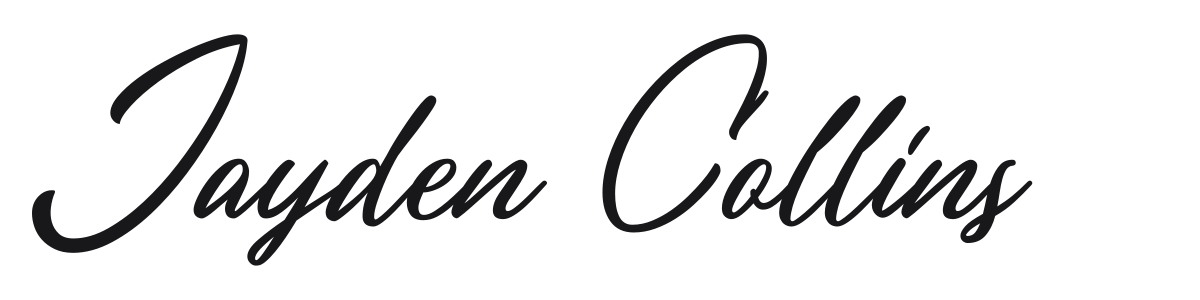
Jayden Collins
Jayden Collins is a casual signature script from Letterhend Studio with long sweeping strokes and fluid connections that feel like genuine pen on paper. The moderate-to-high stroke contrast between thick downstrokes and hairline swashes gives it elegance without stiffness. It sits comfortably in branding, packaging, and logotype work where a personal, handcrafted touch is the point.